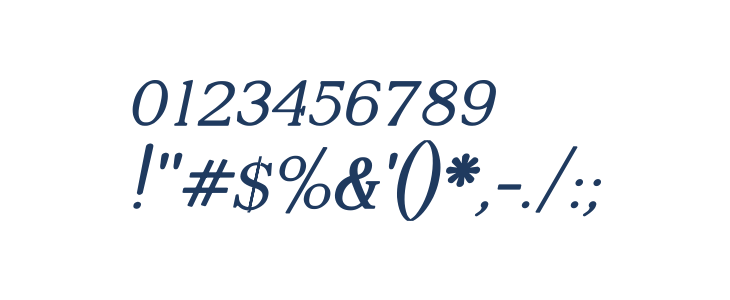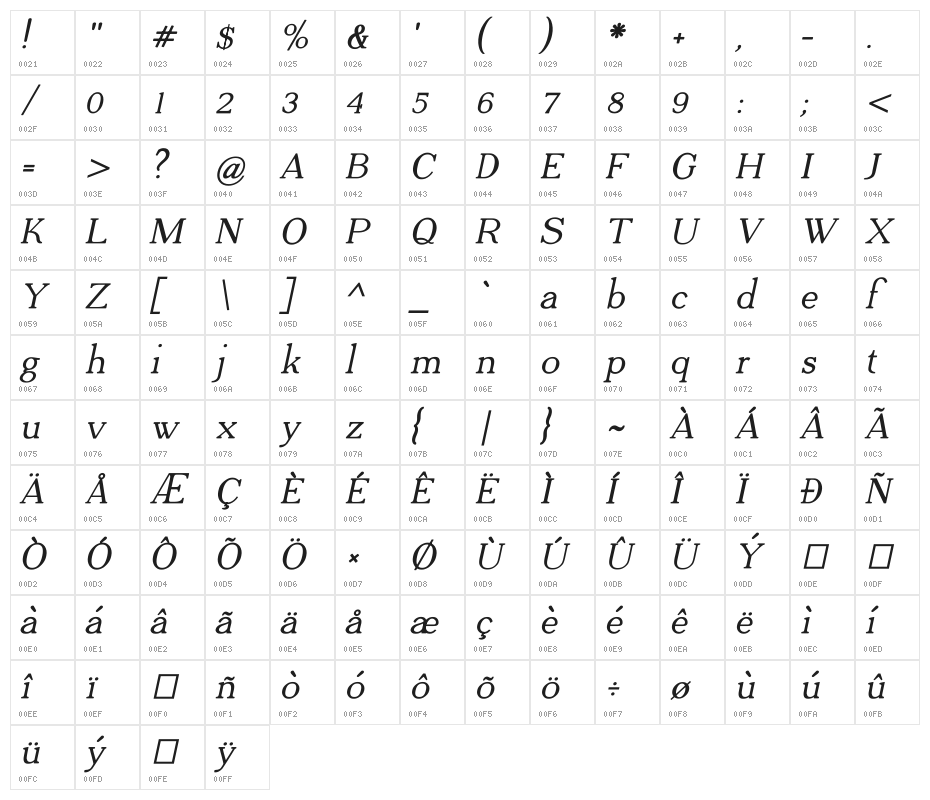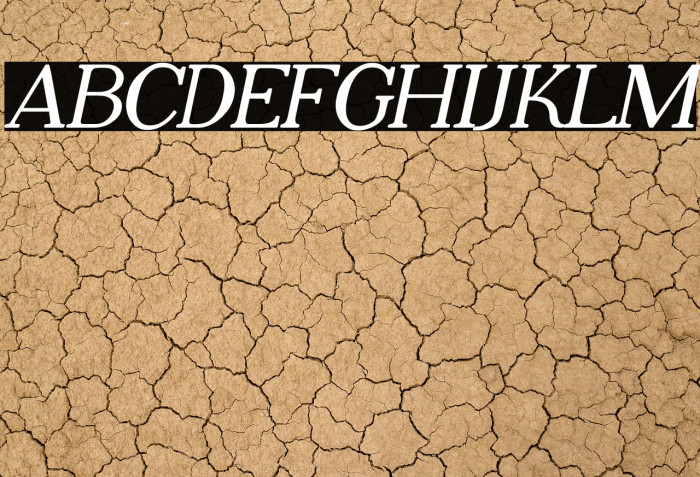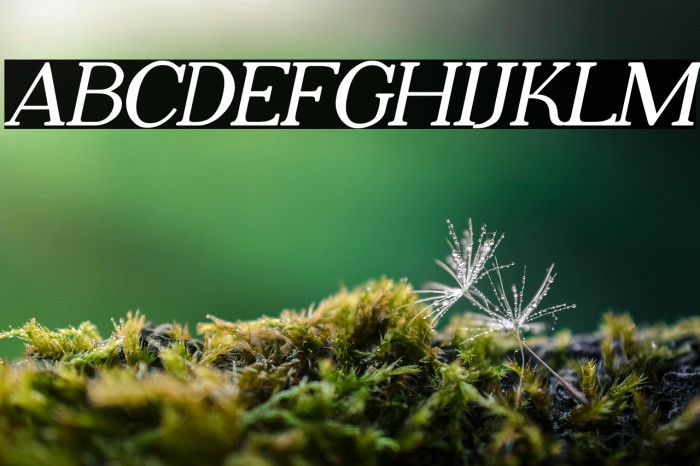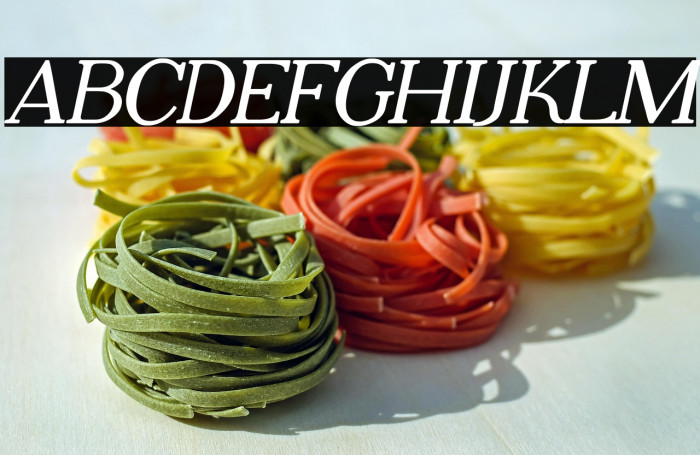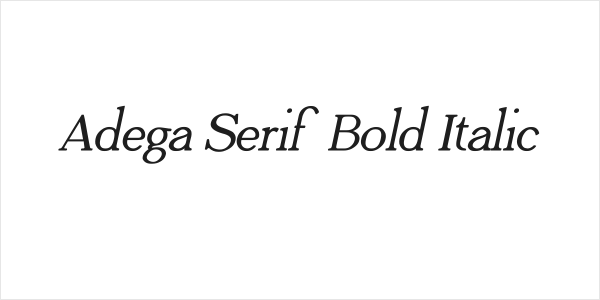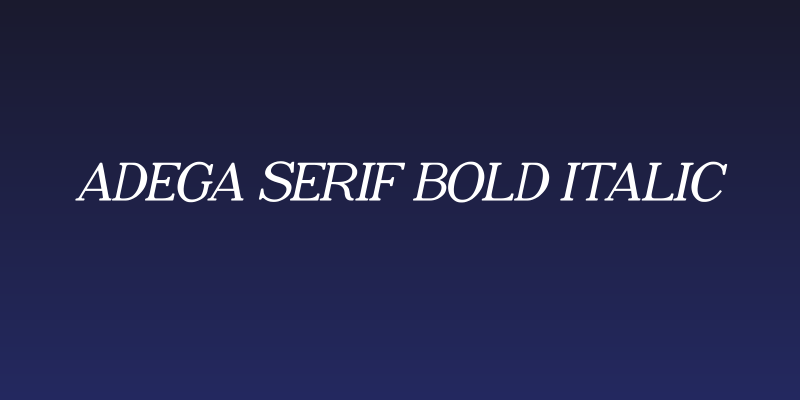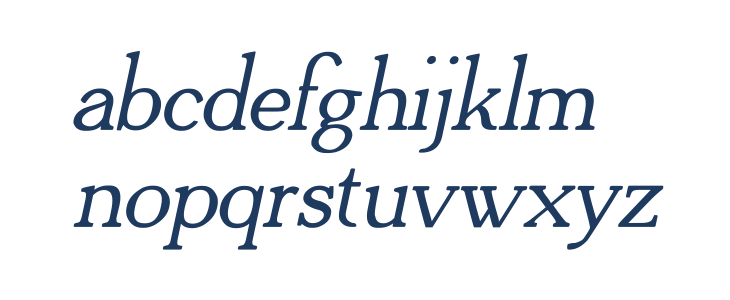
Adega Serif Bold Italic Font
Adega Serif Bold Italic Description
This font exhibits a classic serif style with a bold and italicized appearance, giving it a strong yet elegant presence. The strokes are well-defined, with noticeable serifs that add a touch of sophistication. The italic slant adds a dynamic feel, making it suitable for both formal and creative applications. The characters are evenly spaced, ensuring readability while maintaining a stylish look. This font is versatile, capable of enhancing the visual appeal of various design projects.
| Use Case | Headlines, Logos, Editorial design |
| Proposed Projects | Ideal for book covers, editorial design, branding, and elegant invitations. |